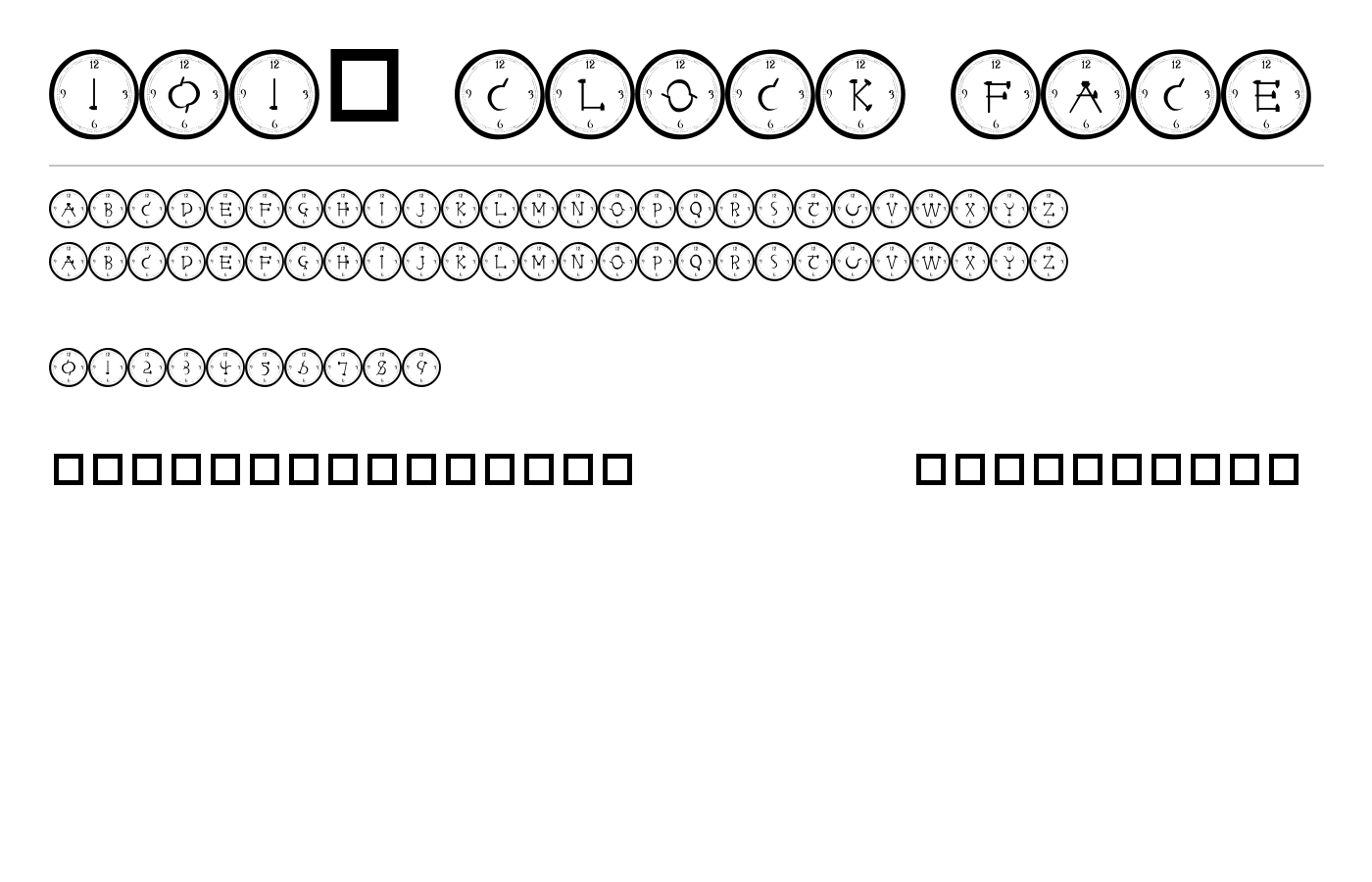
101! Clock Face Font is a whimsical and creative sans serif typeface that incorporates clock faces as circular glyph containers with minimal, delicate hands forming the letter shapes. This playful and unique style, featuring medium contrast and thin stroke details, is ideal for inviting, time-themed designs, logos, and decorative projects that seek a quirky yet clear visual personality.
101! Clock Face Font
About 101! Clock Face Font